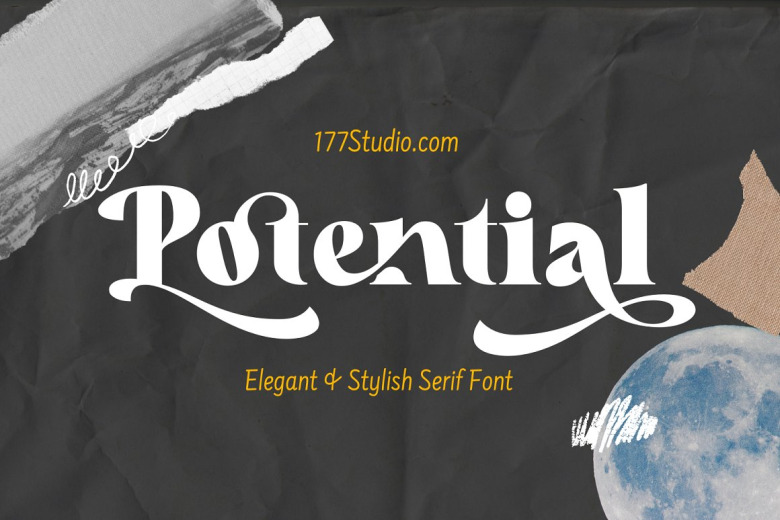
Potential Font
Potential is a luxury and stylish serif font that was inspired by the expensive serif typeface. Trendy, bold, retro, rounded & modern style serif font for your fancy projects. This typeface will be perfect for many different products such as branding, logo, packaging, header & caption t shirt design, poster and others. They also have strong Thickness in every glyph too.
Potential Serif Font